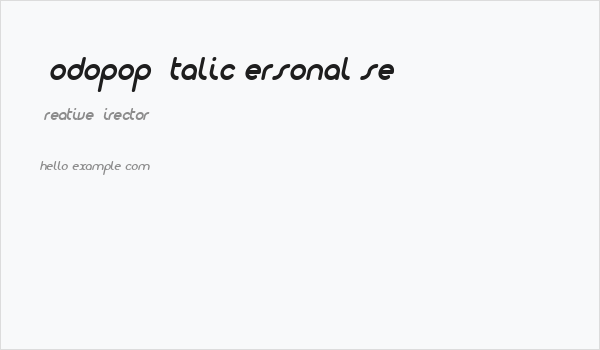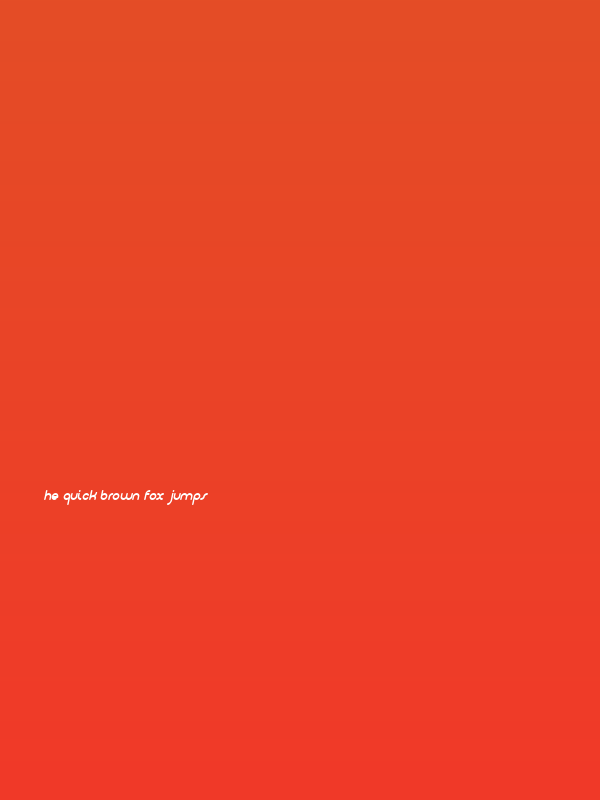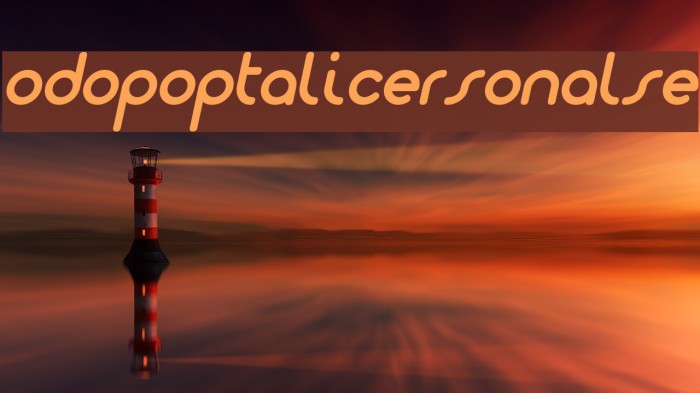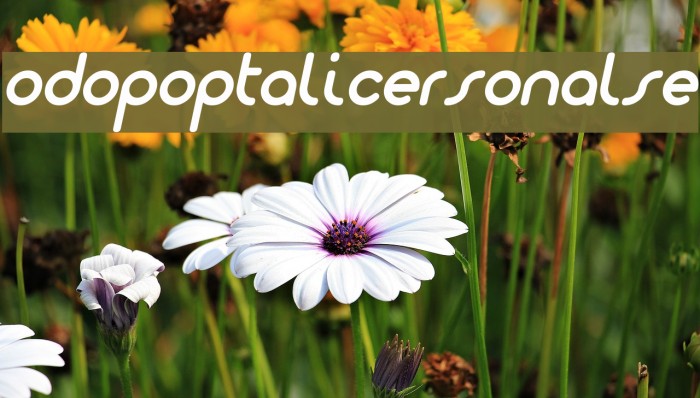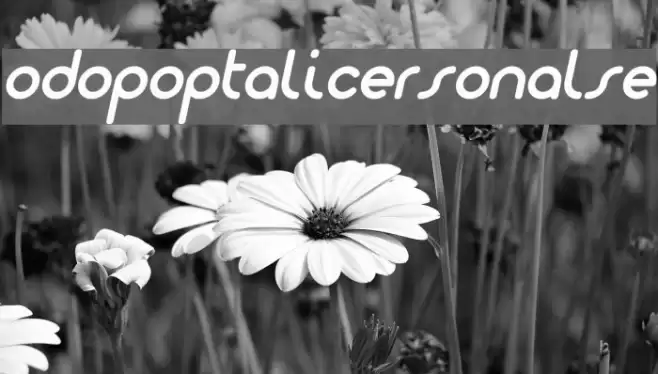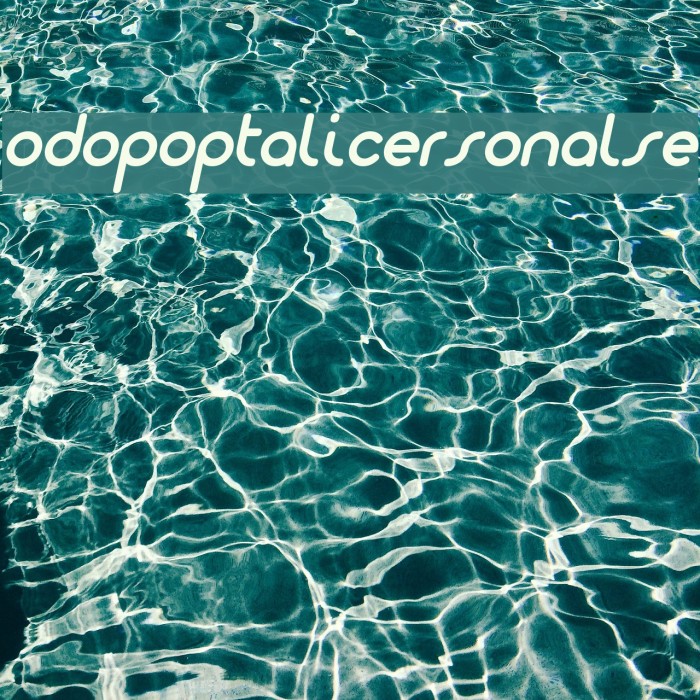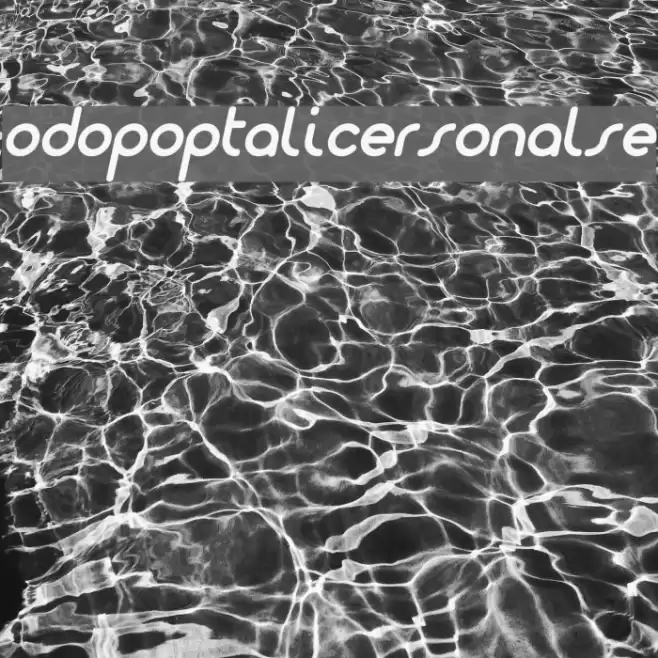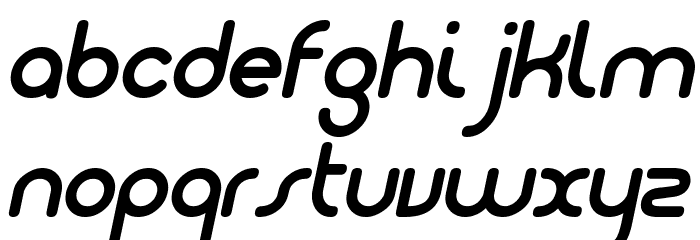
Dodopop-ItalicPersonalUse Font
Dodopop-ItalicPersonalUse Description
This font features a playful and rounded style with a consistent italic slant, giving it a dynamic and informal appearance. The characters are smoothly connected, creating a sense of flow and movement. The rounded edges and uniform stroke width contribute to its friendly and approachable feel. The lowercase letters are distinct and easily readable, making it suitable for casual and creative projects. The overall design is modern and slightly whimsical, ideal for conveying a sense of fun and creativity.
| Overall Style | Modern, Playful |
| Use Case | Headlines, Logos, Creative projects |
| Proposed Projects | Ideal for children's books, playful branding, creative posters, and informal invitations. |
| Author | Fonts by Film Himmel - Jens R. Ziehn |